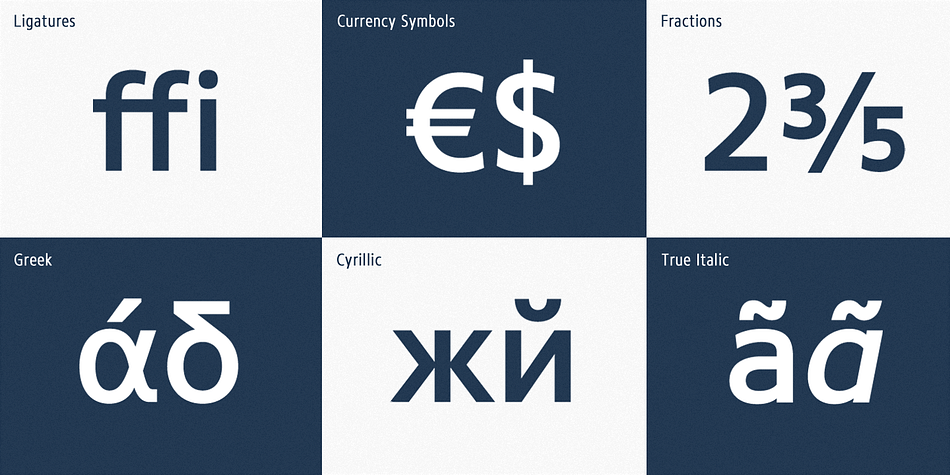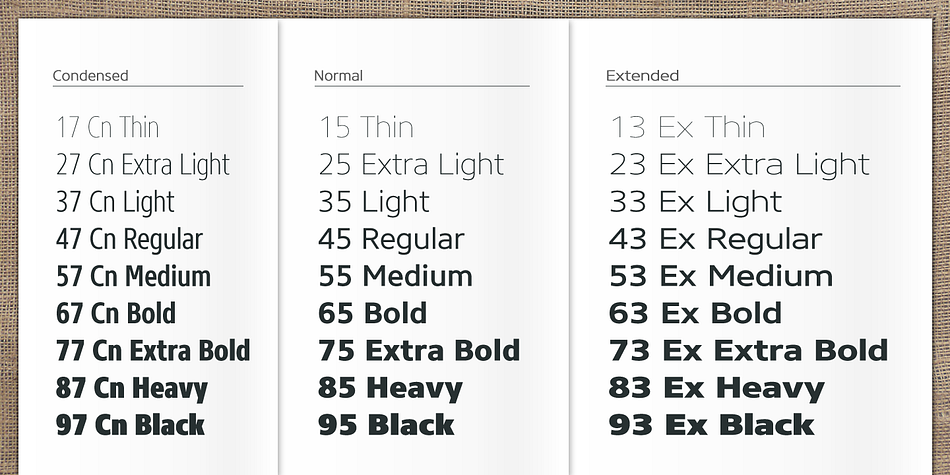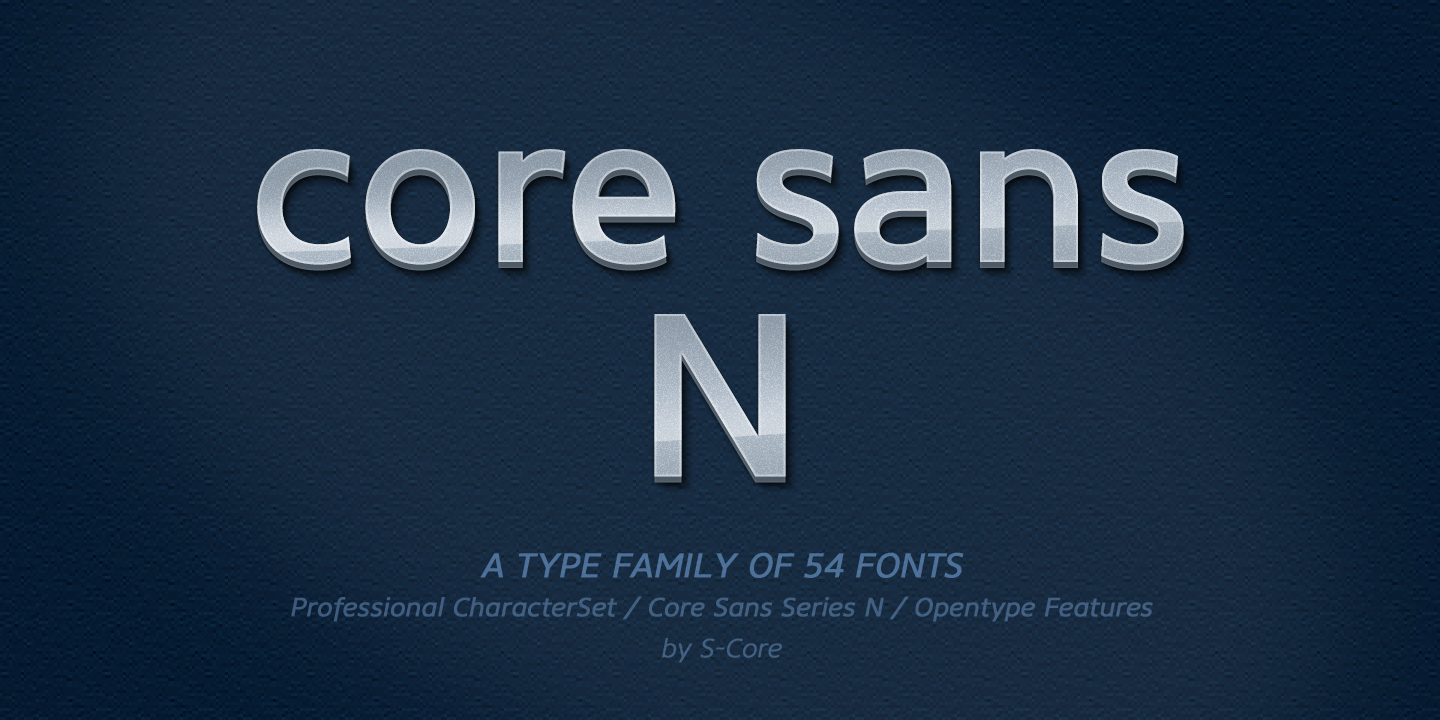
Core Sans N
Core Sans N is a sans serif font family. This typeface has fifty-four styles and was published by S-Core.
Letters in the Core Sans N Family are designed with genuine neo-grotesque and neutral shapes without any decorative distractions.
The spaces between individual letter forms are precisely adjusted to create the perfect typesetting.
The Core Sans N Family consists of 3 widths (Condensed, Normal, Extended), 9 weights (Thin, ExtraLight, Light, Regular, Medium, Bold, ExtraBold, Heavy, Black), and Italics for each format.
It also supports WGL4, which provides a wide range of character sets (CE, Greek, Cyrillic and Eastern European characters).
Each font includes support for Superiors and Inferiors, Fractions, Tabular numbers, Arrows, Box drawings, Geometric shapes, Block elements, Mathematical operators, Miscellaneous symbols and Opentype Features such as Proportional Figures, Tabular Figures, Numerators, Denominators, Superscript, Scientific Inferiors, Subscript, Fractions and Standard Ligatures.The Core Sans N Family provides both OpenType (.OTF) and TrueType (.TTF) versions in the same package.
The Core Sans N Family is a part of the Core Sans Series. Letters in the Core Sans N Family are designed with genuine neo-grotesque and neutral shapes without any decorative distractions. The spaces between individual letter forms are precisely adjusted to create the perfect typesetting.
The Core Sans N Family consists of 3 widths (Condensed, Normal, Extended), 9 weights (Thin, ExtraLight, Light, Regular, Medium, Bold, ExtraBold, Heavy, Black), and Italics for each format. It also supports WGL4, which provides a wide range of character sets (CE, Greek, Cyrillic and Eastern European characters). Each font includes support for Superiors and Inferiors, Fractions, Tabular numbers, Arrows, Box drawings, Geometric shapes, Block elements, Mathematical operators, Miscellaneous symbols and Opentype Features such as Proportional Figures, Tabular Figures, Numerators, Denominators, Superscript, Scientific Inferiors, Subscript, Fractions and Standard Ligatures.The Core Sans N Family provides both OpenType (.OTF) and TrueType (.TTF) versions in the same package.
We highly recommend it for use in books, web pages, screen displays, and so on.